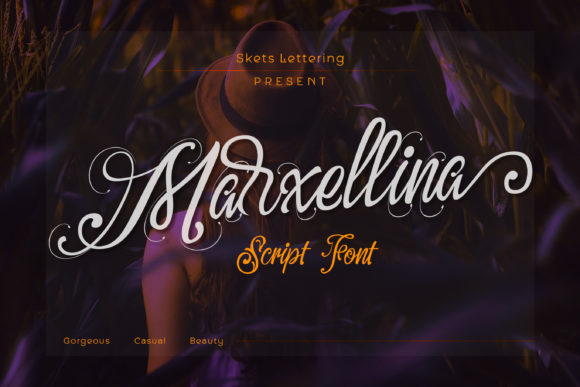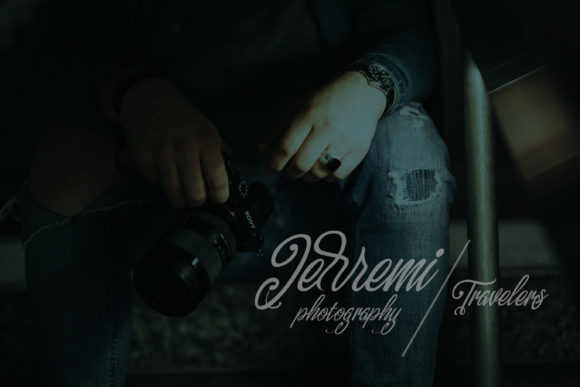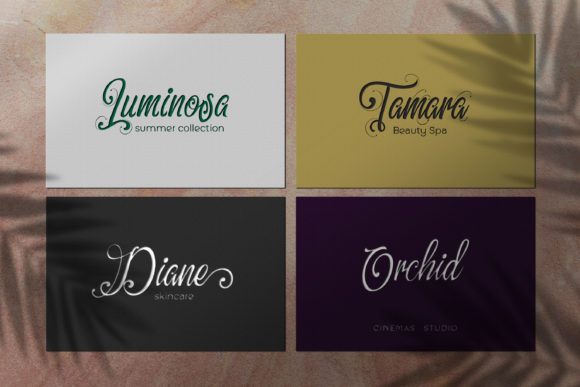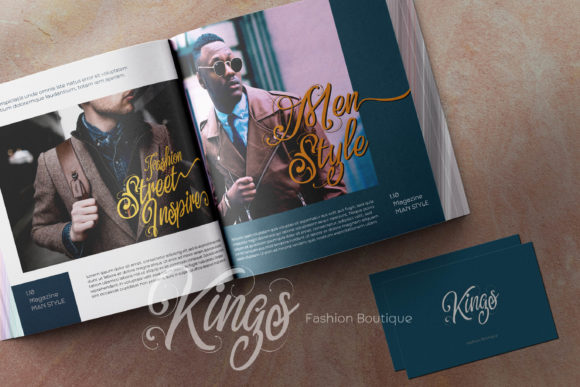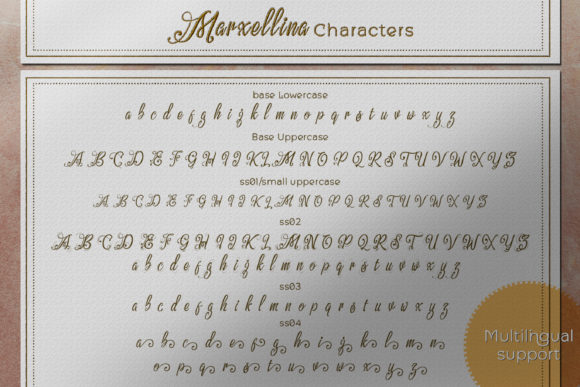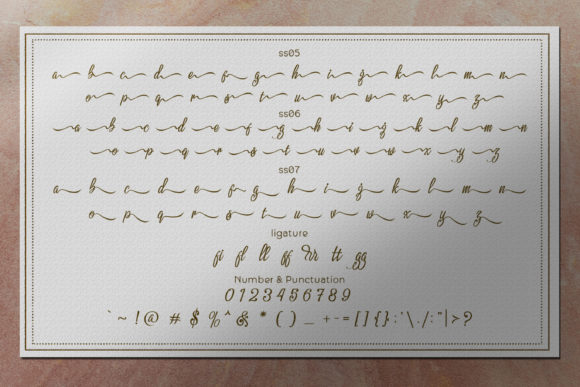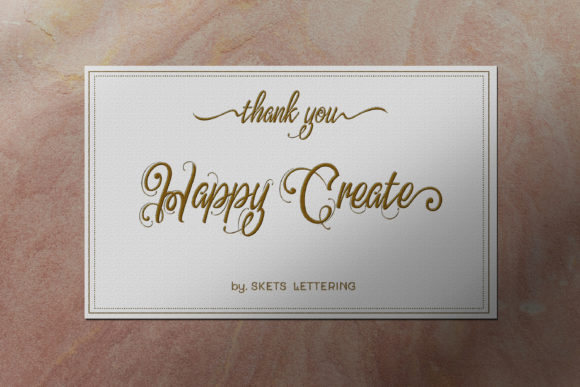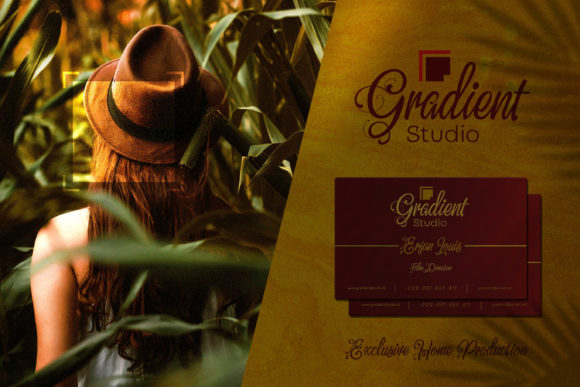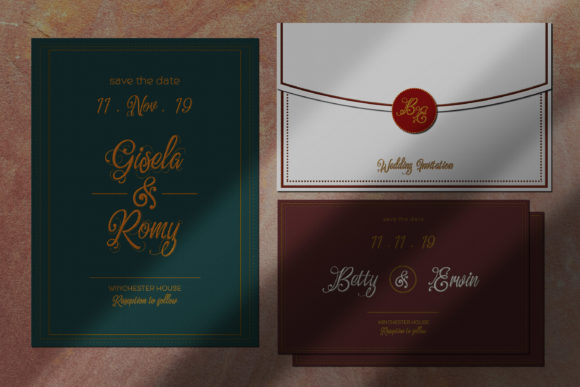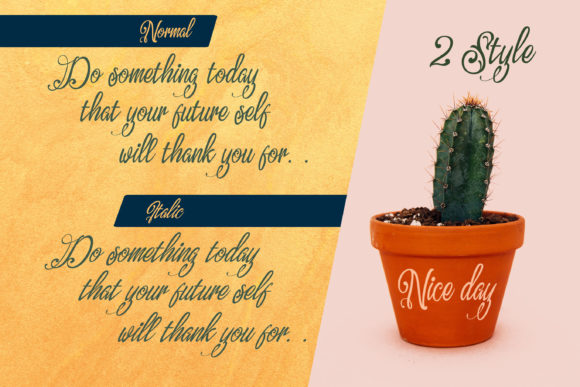
Marxellina Font
About Marxellina Font
Marxellina looks elegant, charming, beautiful and formidable, making it a truly exceptional addition to your font collection.